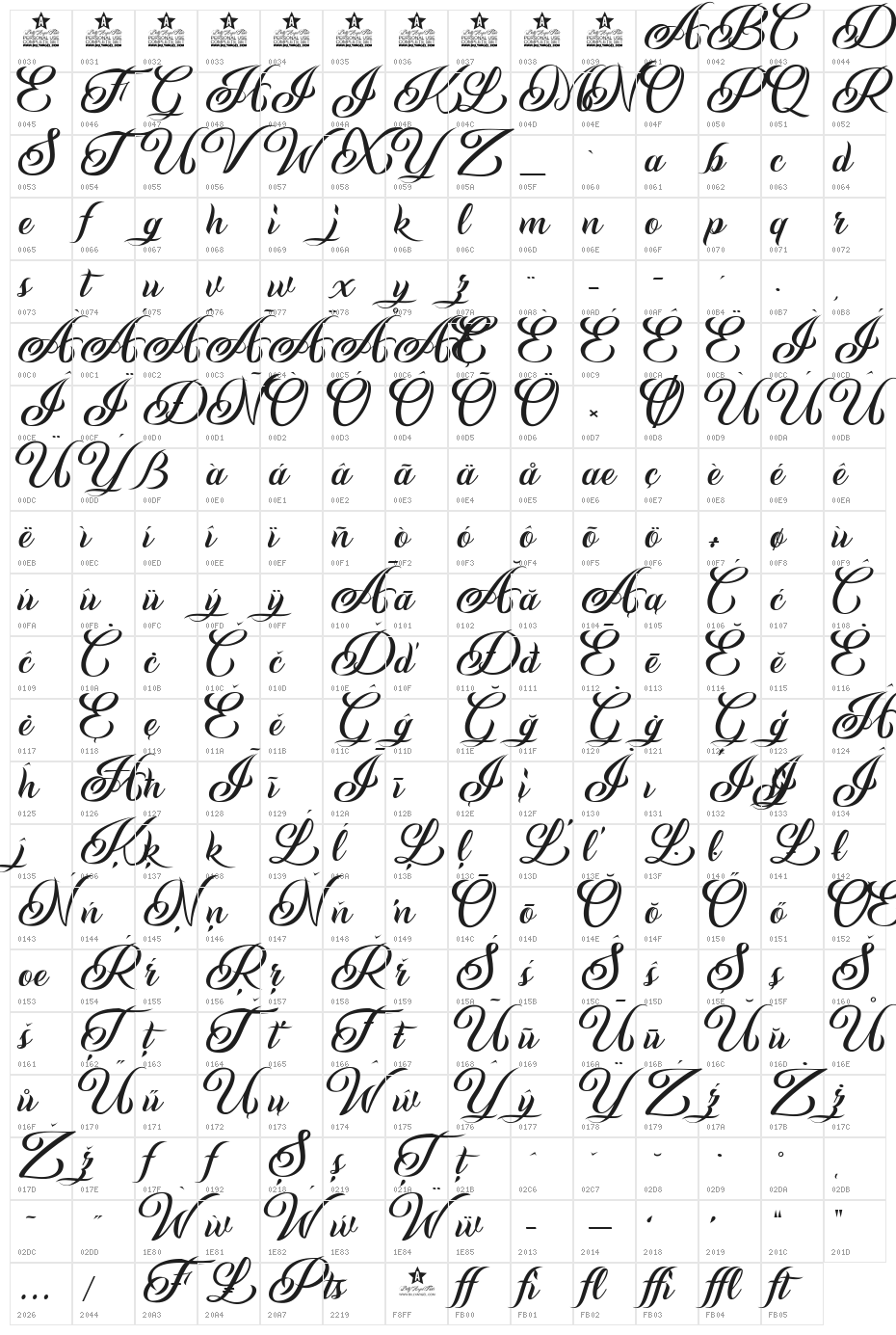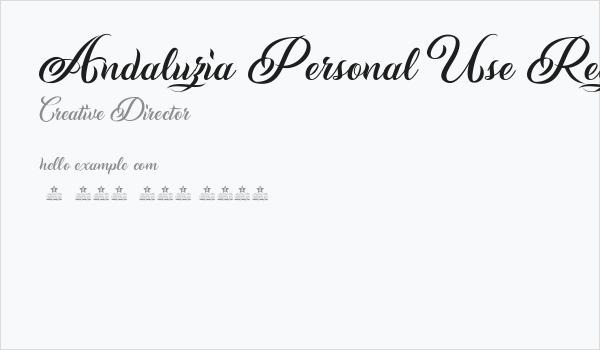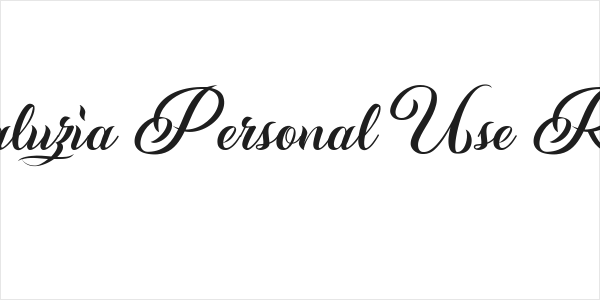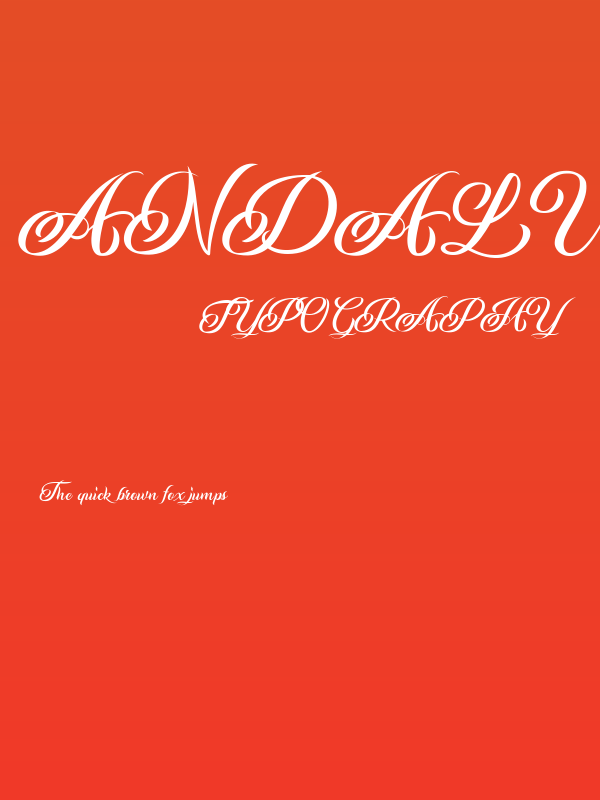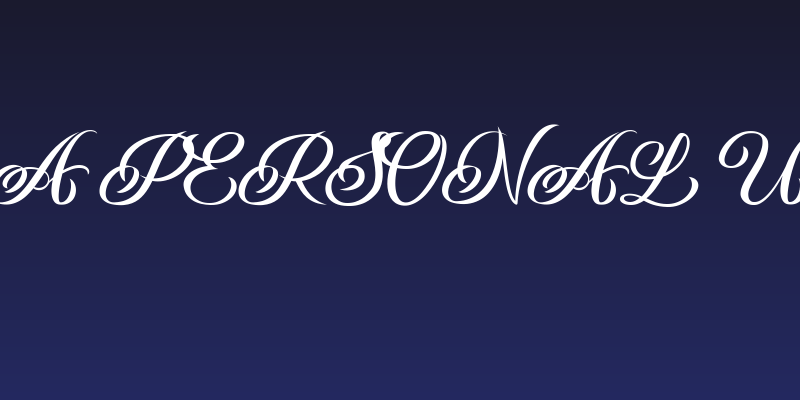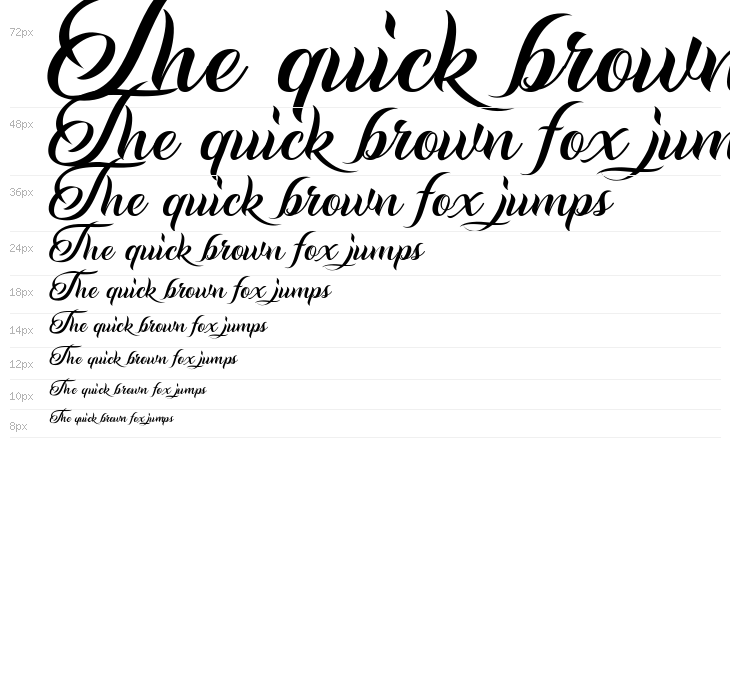
Andaluzia Personal Use Regular Font
Andaluzia Personal Use Regular Description
This font features an elegant and flowing script style, characterized by its intricate and decorative letterforms. The uppercase letters exhibit a sophisticated flair with extended swashes and loops, adding a touch of grandeur and formality. The lowercase letters maintain a consistent fluidity, with some characters featuring distinctive flourishes that enhance the overall aesthetic. The font's design is reminiscent of classic calligraphy, making it suitable for projects that require a touch of elegance and sophistication. Its artistic nature makes it ideal for creative and decorative applications.
| Proposed Projects | Wedding invitations, luxury branding, greeting cards, and elegant packaging. |